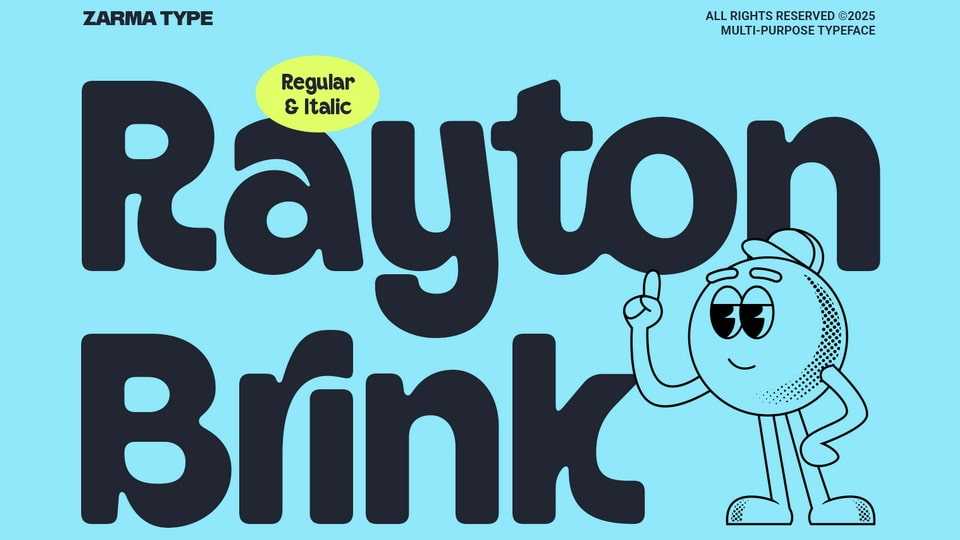
Download Rayton Brink font, a friendly rounded typeface designed to infuse your brand identity with joy, clarity, and approachability with its smooth, thick curves and playful presence.
Designer: Zarma Type Foundry